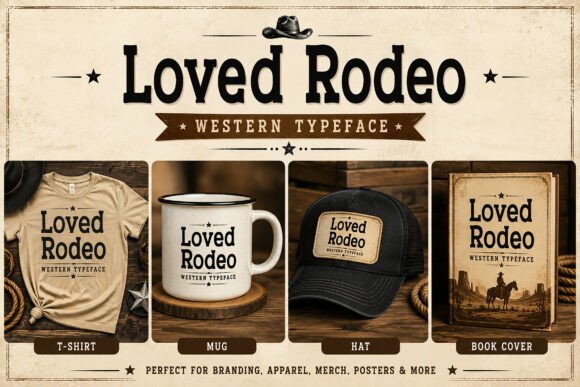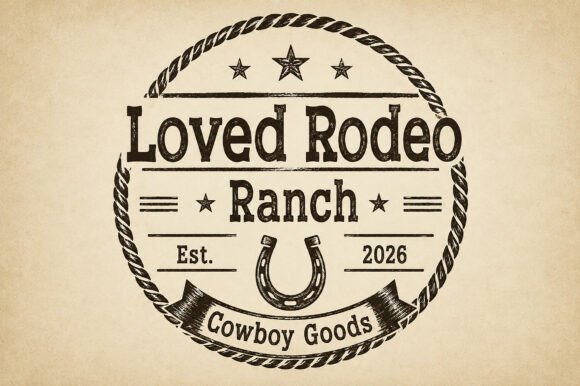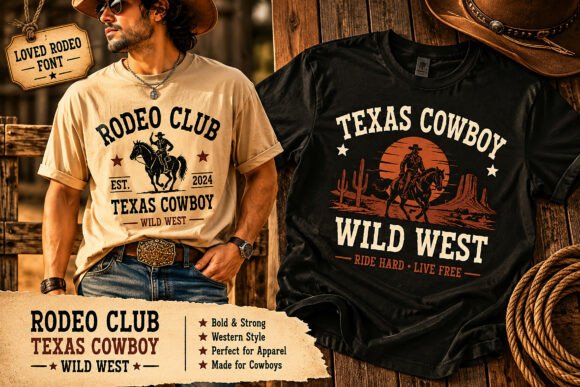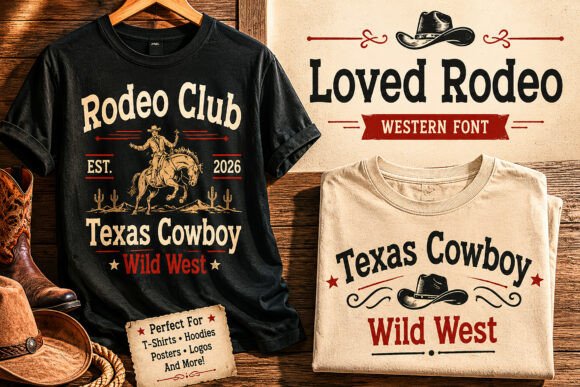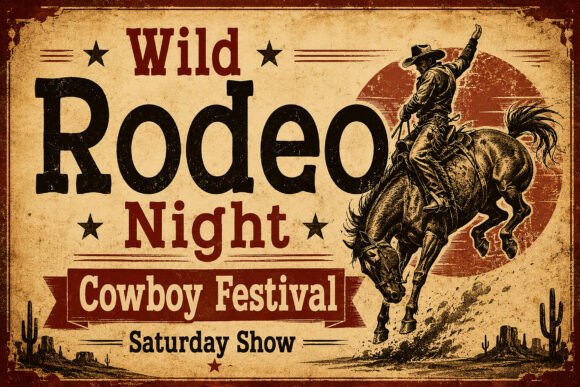
Introduction to Loved Rodeo Font Font
Fonts play a crucial role in design, and the Loved Rodeo Font font is a typeface that brings both character and versatility to any project. Whether you’re working on a branding project, a website, or a print design, the Loved Rodeo Font font offers a unique style that can elevate your work.
Capture the spirit of the wild west with Loved Rodeo β a robust western display font.
Forged from the soul of cowboy culture and the weathered charm of vintage rodeo posters, Loved Rodeo drips authentic rustic Americana typography The font sports hearty serif shapes, echoing a bygone eraβs grit while infusing your designs with enduring western personality.
Key Features of Loved Rodeo Font Font
Why Choose Loved Rodeo Font Font?
The Loved Rodeo Font font is more than just a typeface β it’s a design tool that helps you communicate your message with style and clarity. Its unique character set and versatile design make it suitable for a wide range of applications, from elegant invitations to bold headlines.
With its carefully crafted letterforms and balanced proportions, the Loved Rodeo Font font ensures readability and visual appeal across all mediums.
What makes Loved Rodeo Font font special?
The Loved Rodeo Font font stands out with its unique design, exceptional readability, and versatility across various design applications.